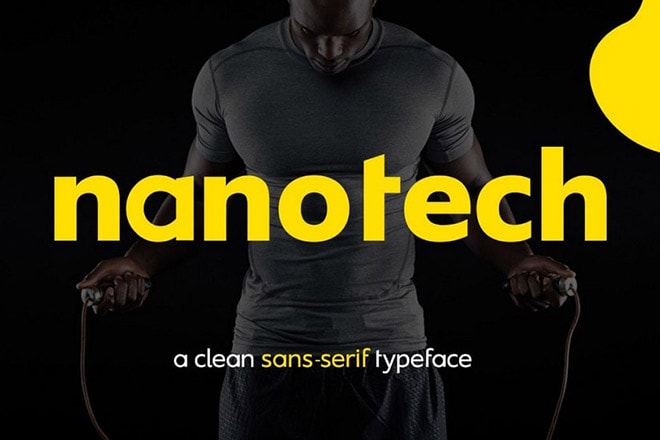
Free Popular Sans Serif Fonts 2020 Free Typography Fonts
All Free PSD Mockups - Download Free SVG Cut FilesA continuously updated collection of the 10 most popular serif web fonts based on font usage data from typewolf between 2013 and 2020. Larosa sans elegant typeface. Designed by hannes von doehren its functional with a dash of warmth and is something our students cant get enough of.
The best quality of this design is that it looks like a merger of sans and serif that could be a perfect opportunity for designers to design logos.
Popular sans serif fonts 2020. The combination of clean lines irregular shapes and elegant retro inspired curves gives it a unique and eye catching edge and it includes a wide range of glyphs for ultimate. Its clean and minimalistic works wonderfully on its own for logos headlines posters packaging and many more. In lettering and typography sans serif fonts sans serif gothic or simply sans letterform is one that does not have to extend features called serifs toward the end of strokes. In most print they are regularly used for headings rather than for body text.
One of the best sans serif fonts for a graphic design project the tawakkal typeface is a funky modern font with classical elements. If youre always on the lookout for new sans serif fonts to use on web design and graphic design projects youll surely find this list of 50 best sans serif fonts to be useful. Most font are free with a few premium options mixed in if youre looking for something that really stands out. Sans serif fonts have a tendency to have less line width variation than serif fonts.
Go ahead scroll down and start downloading. Influenced by the geometric style sans serif faces popular in the 1920s and 30s brandon grotesque is another big prediction for 2020. A continuously updated collection of the 10 most popular sans serif web fonts based on font usage data from typewolf between 2013 and 2020. The fine details of serifs especially the more delicate and.
Theres no doubt that helvetica is the most popular sans serif font of 2020 and will stay relevant for a long time to come. 50 best serif fonts collection 2020. 50 free sans serif fonts are all the rage these days due to the number of mobile devices available today. Tawakkal sans serif font.
Serif typefaces tend to be thought of as classic and traditional whereas sans serif typefaces are thought of as more modern and contemporary. Helvetica source. This collection includes the best free script fonts serif fonts sans serif fonts decorative fonts and much more to match any kind of design project youre working on. Here is the list of 50 best sans serif fonts of 2020.
Serif is one of the most widely used font family on blogs and other projects. A collection of best serif fonts that will help you make your design look great. Our students loved using this typeface over the last 12 months and we can see it being a top font in 2020 too. Introducing larose sans an elegant modern sans serif with ton of stylistic alternates to choose.